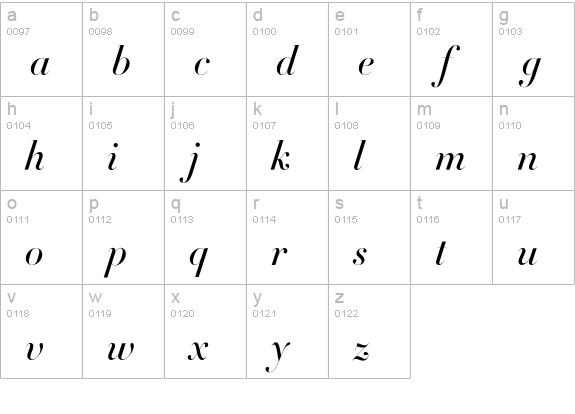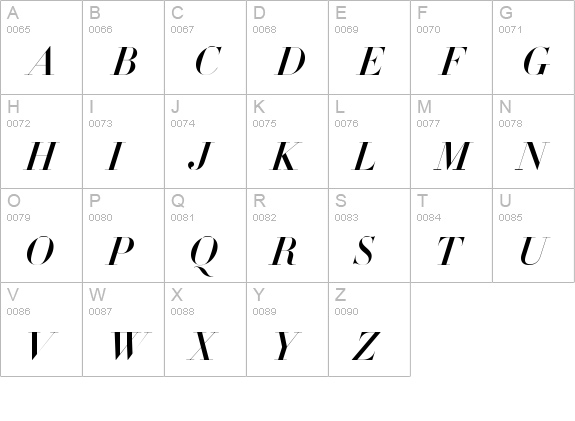
Didot-HTF-M64-Medium-Ital is a balanced, medium-weight variant in the Didot typeface family \xE2\x80\x94 well suited to sub-headlines, navigation, and balanced editorial work.
Didot-HTF-M64-Medium-Ital is a stunning font that exudes elegance and sophistication. With its sleek and modern design, this font is perfect for adding a touch of class to any project. The medium weight and italic style make it versatile and ideal for both headings and body text. This font is not only visually appealing but also highly readable, making it a great choice for a wide range of design applications. Whether you're creating a luxury brand identity, designing a high-end publication, or working on a stylish website, Didot-HTF-M64-Medium-Ital is sure to elevate your project. The best part? This font is available for free download at FontsMarket.com, making it easily accessible to designers and creatives looking to enhance their work with a touch of sophistication. Don't miss out on the opportunity to add this exquisite font to your collection today!